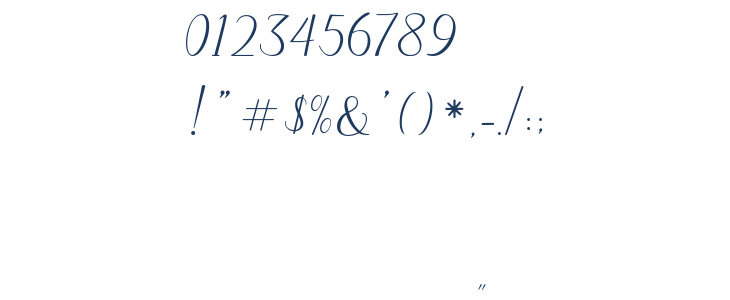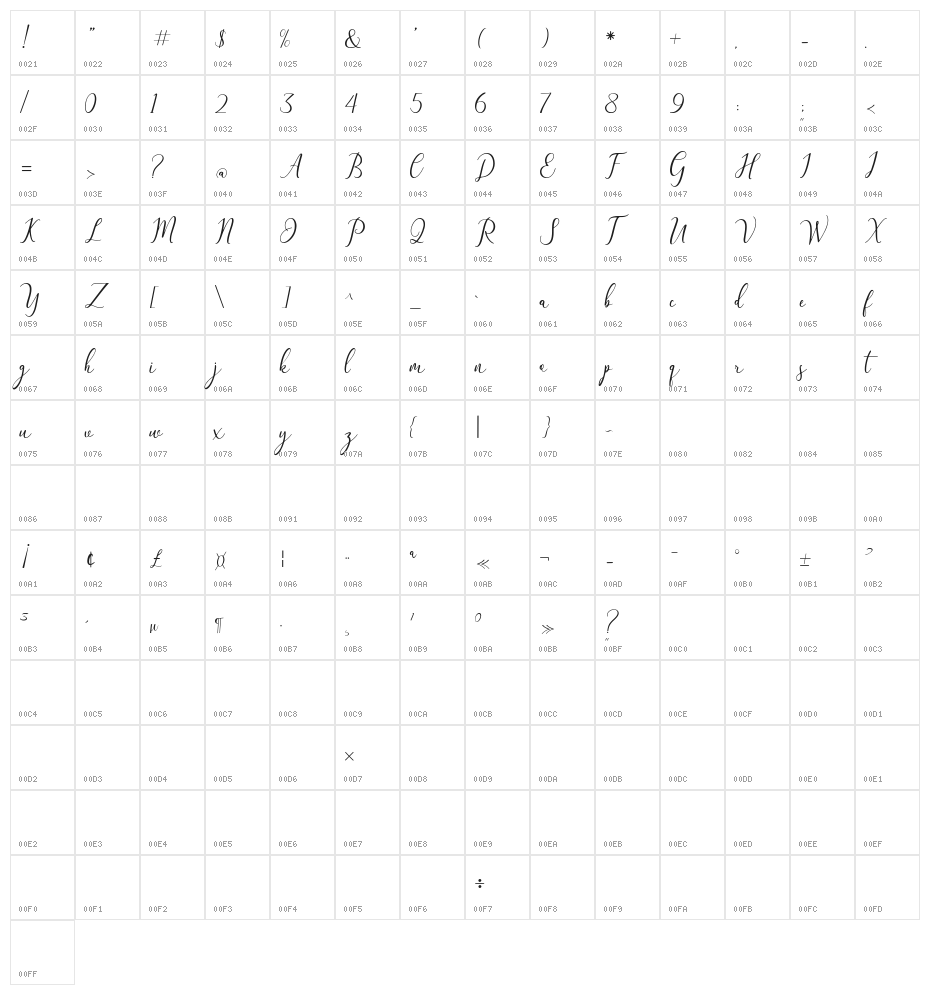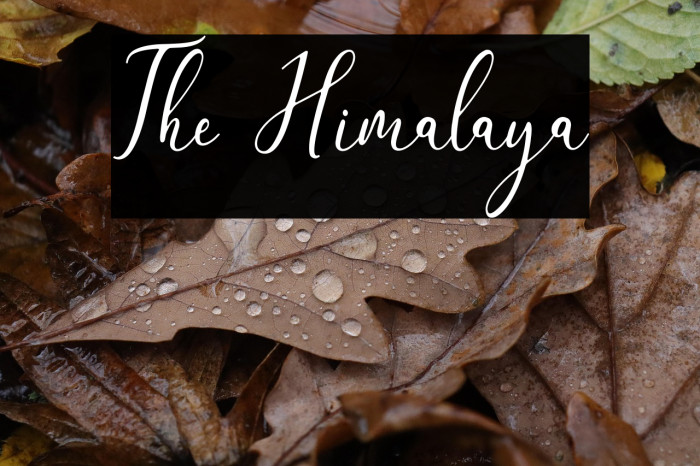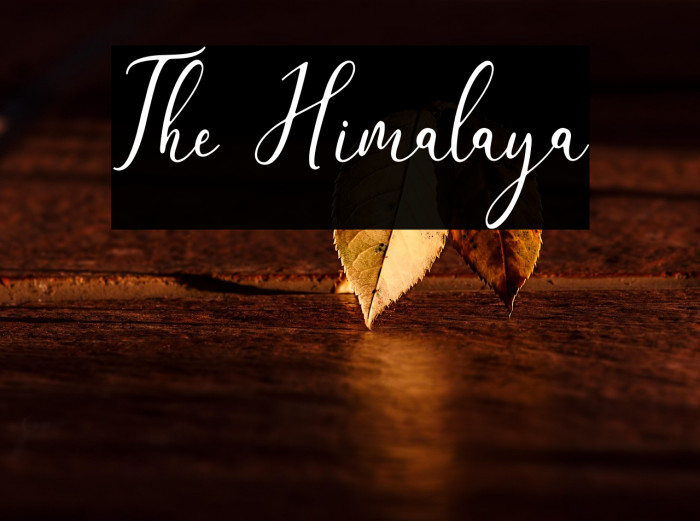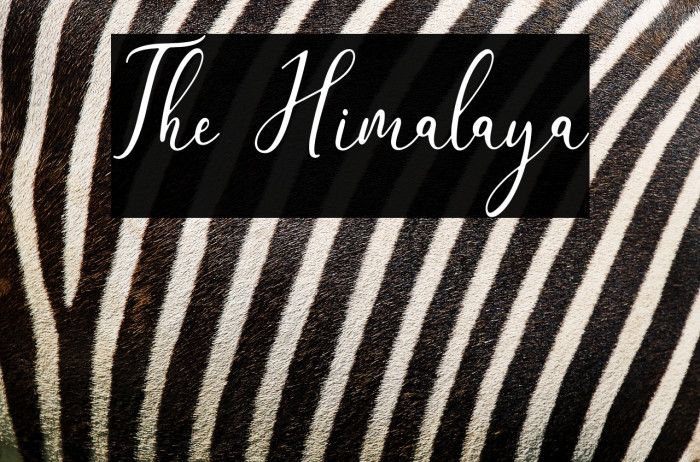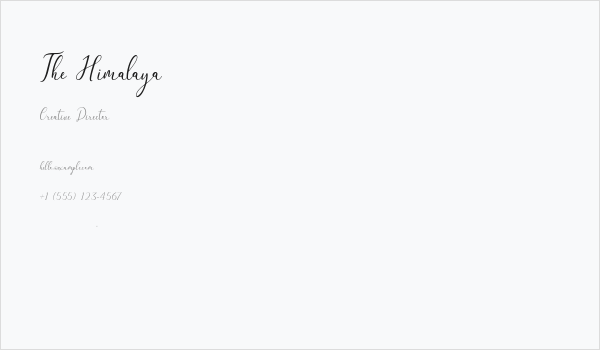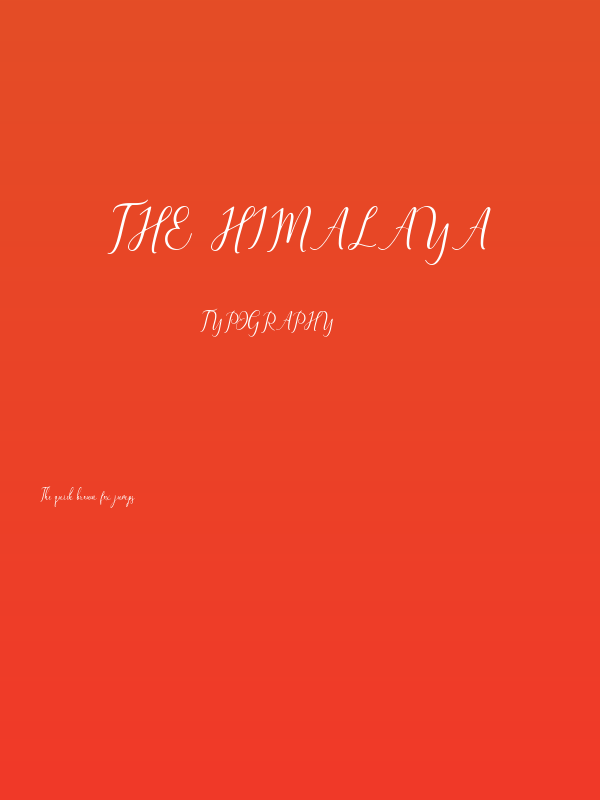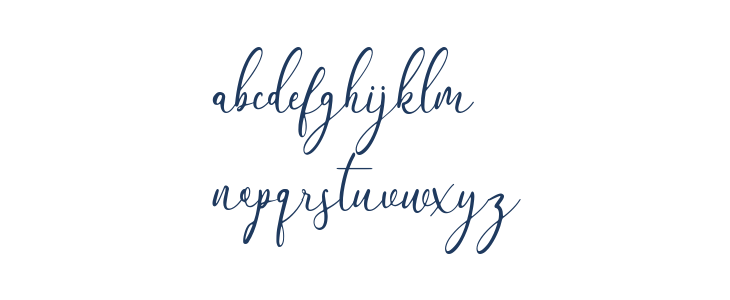
The Himalaya Font
The Himalaya Description
This elegant script font features flowing, cursive letterforms with a refined and sophisticated appearance. The uppercase letters are tall and graceful, with sweeping ascenders and descenders that add a sense of movement and fluidity. The lowercase letters maintain a consistent style, complementing the uppercase with their own delicate curves. Numbers are designed with a similar flair, ensuring a cohesive look across all characters. The special characters, including punctuation and symbols, are thoughtfully integrated, maintaining the overall aesthetic. This font's high contrast in stroke thickness enhances its readability while adding a touch of drama.